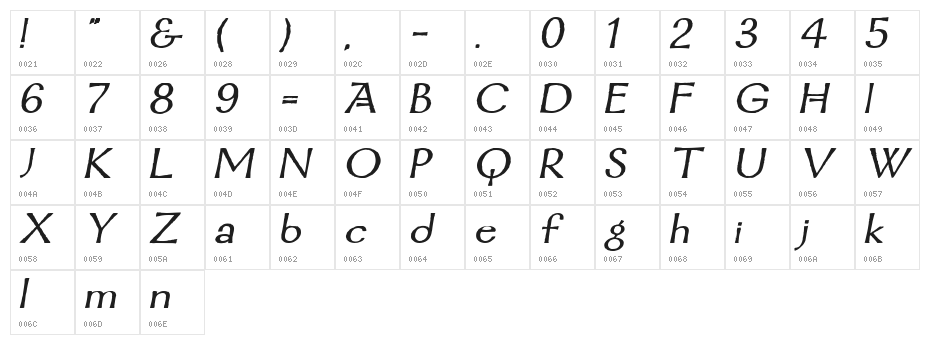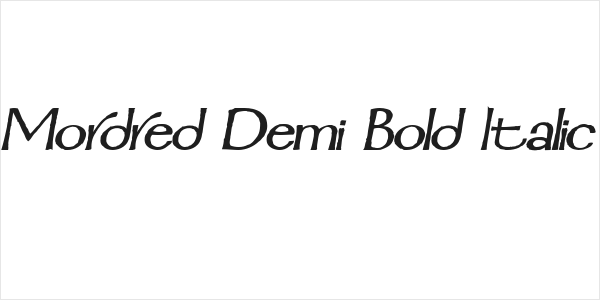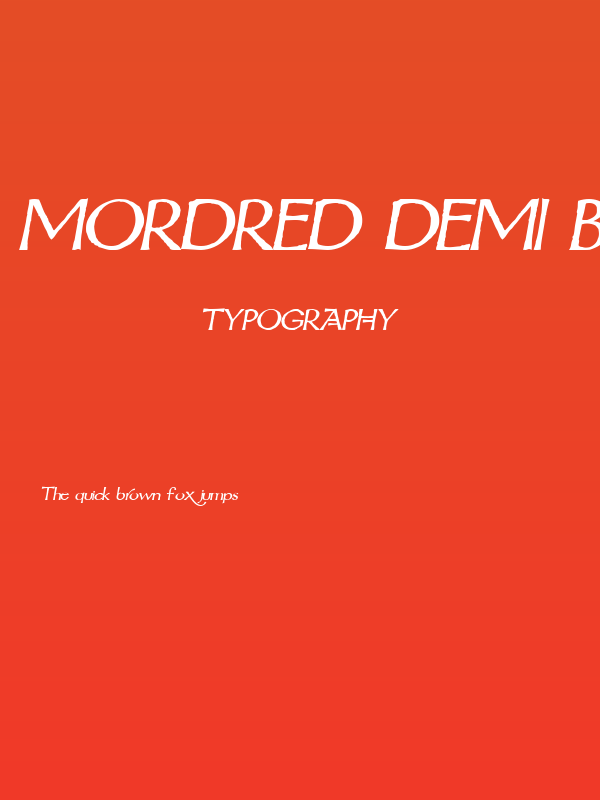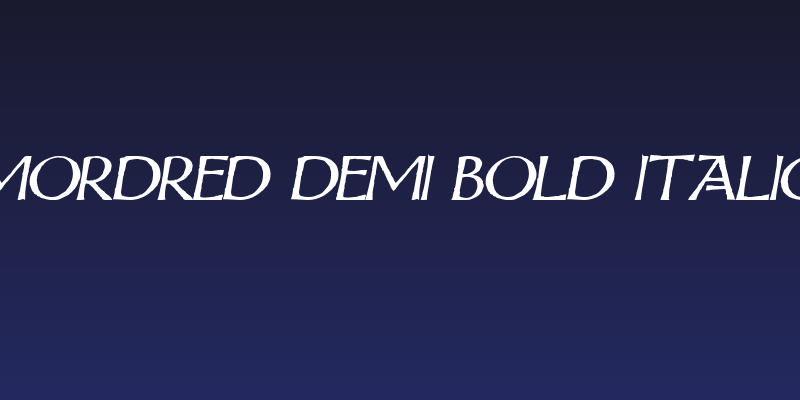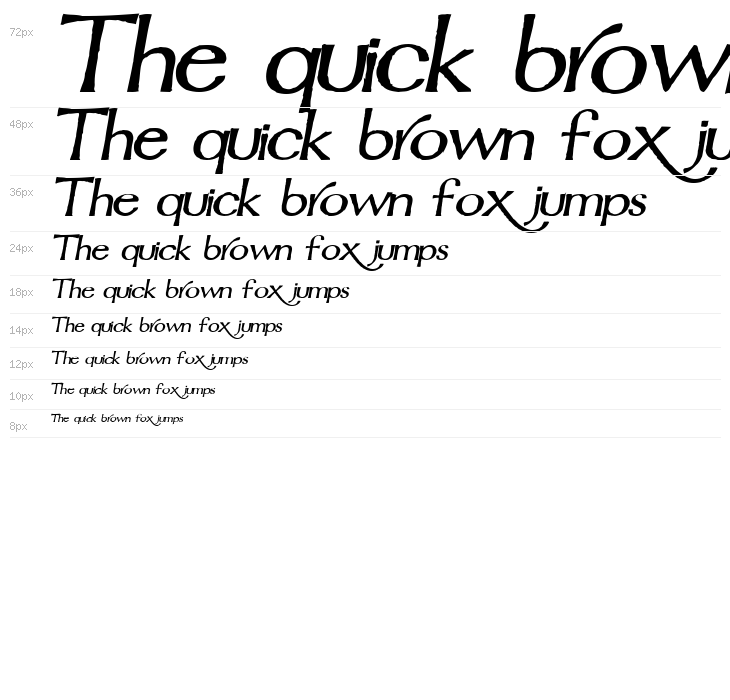
Mordred Demi Bold Italic Font
Mordred Demi Bold Italic Description
This font features a dynamic and expressive style with a slanted, italicized form that adds a sense of motion and energy. The characters are bold and slightly condensed, giving them a strong presence on the page. The strokes are smooth and fluid, with a medium contrast between thick and thin lines, enhancing readability while maintaining a stylish appearance. The uppercase letters are tall and commanding, while the lowercase letters are more rounded and approachable. The numerals are consistent with the overall design, ensuring clarity and uniformity. Special characters are creatively designed, adding a unique flair to the font.